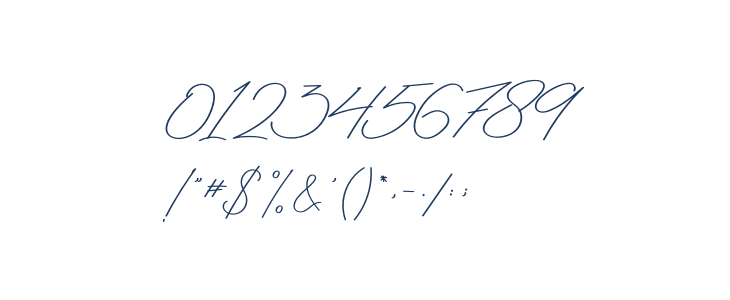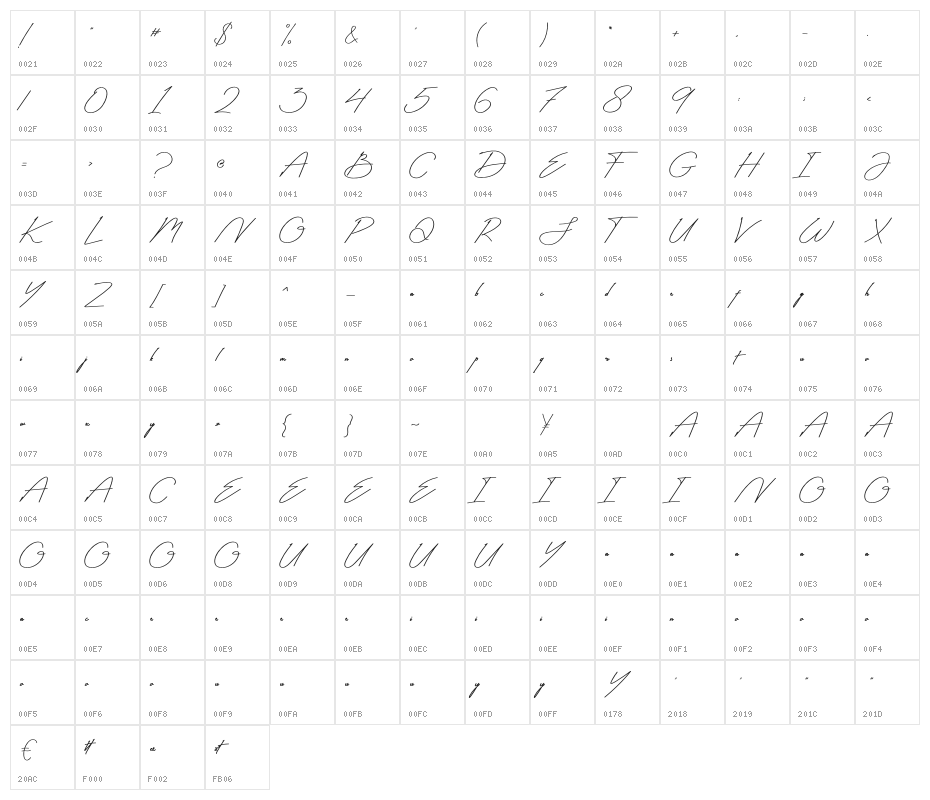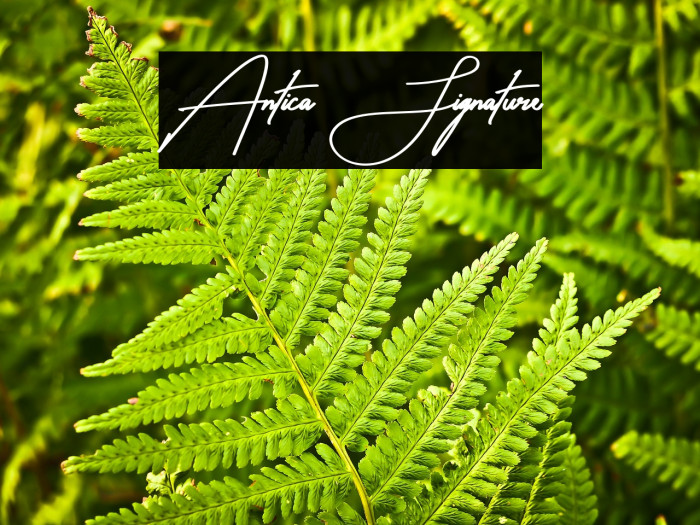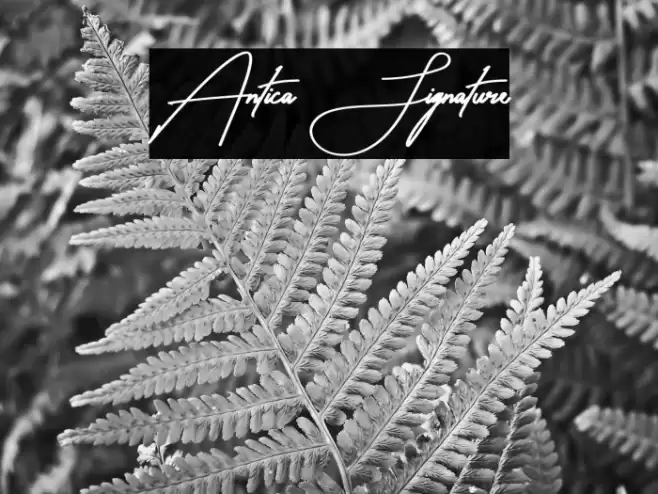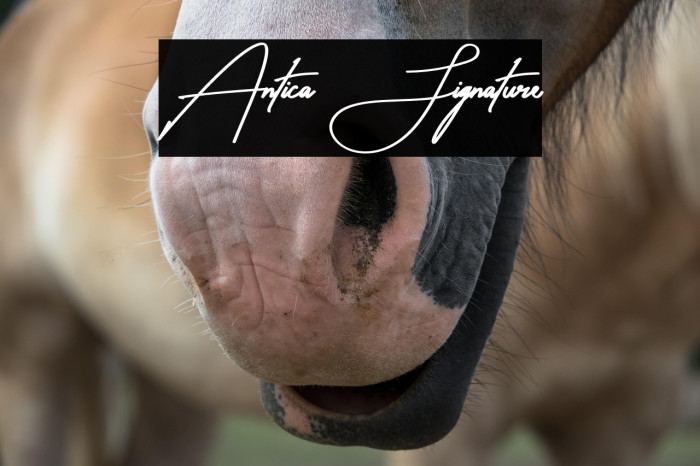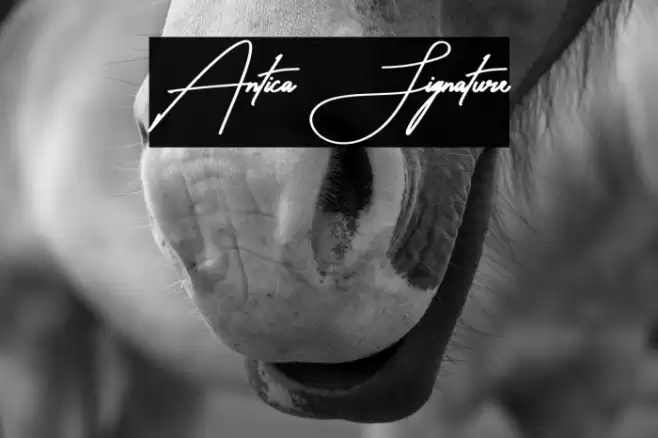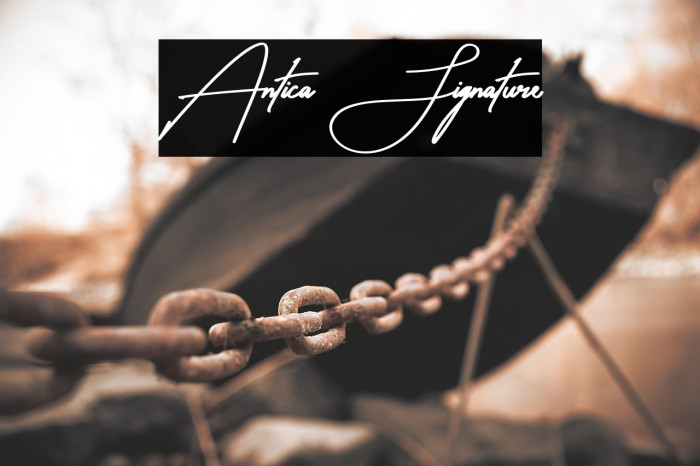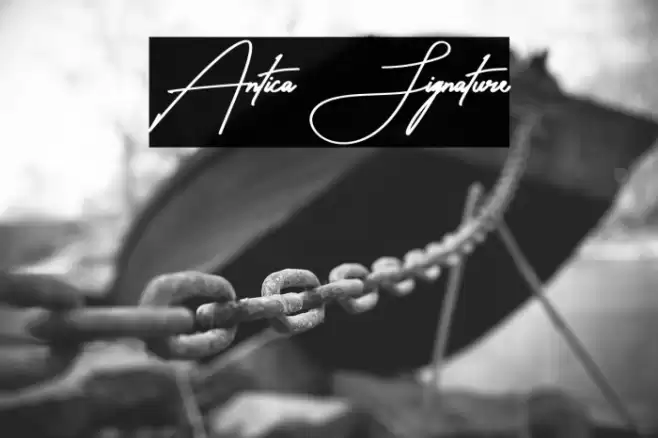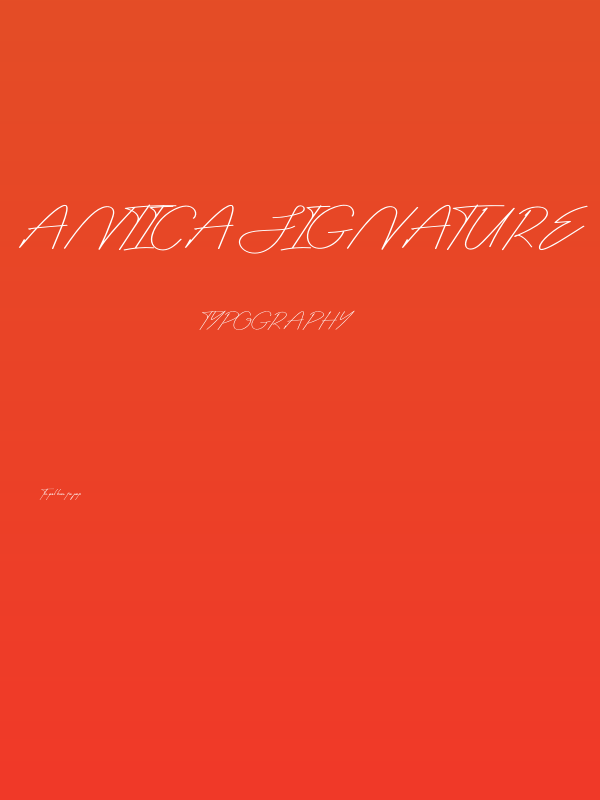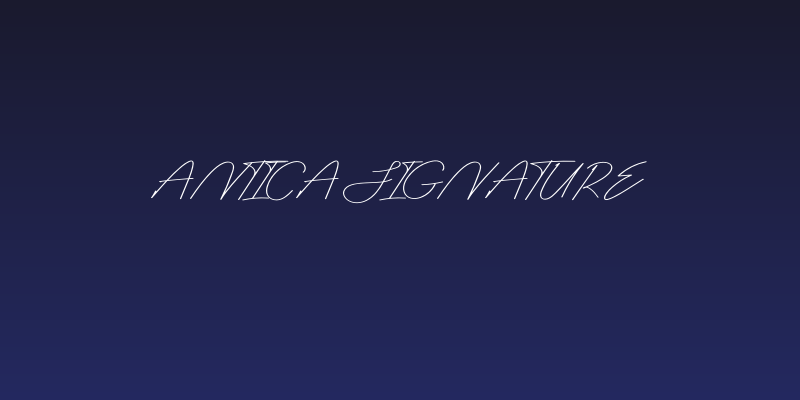
Antica Signature Font
Antica Signature Description
This elegant script font features a flowing, cursive style with a sophisticated touch. The letters are connected, creating a seamless and fluid appearance. The uppercase characters are tall and graceful, while the lowercase letters maintain a consistent rhythm and balance. The numerals are stylishly integrated, matching the overall cursive theme. Special characters are designed with the same attention to detail, enhancing the font's versatility. The thin strokes and delicate curves give it a refined and polished look, making it suitable for formal and decorative applications.
Overall StyleElegant, Decorative
Use CaseLogos, Invitations, Decorative text
Proposed ProjectsIdeal for wedding invitations, elegant branding, personal signatures, and high-end product packaging.